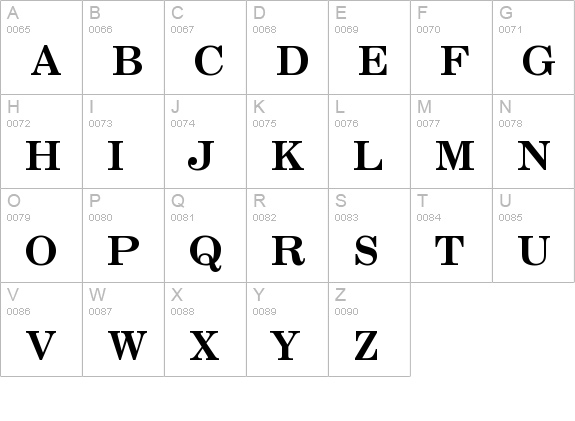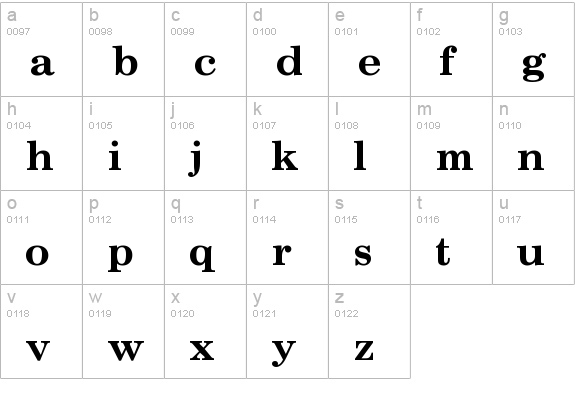
Century Schoolbook SSi Bold Font Details
Century Schoolbook SSi Bold is a strong, high-contrast variant in the Century typeface family \xE2\x80\x94 well suited to headlines, attention-grabbing titles, and strong calls-to-action.
Century Schoolbook SSi Bold font is a classic and elegant typeface that exudes sophistication and timelessness. Its bold weight makes it perfect for making a strong statement in headlines, titles, and other prominent text. The font features a balanced design with clean lines and distinct letterforms that ensure readability and legibility across various applications. What makes Century Schoolbook SSi Bold font even more appealing is that it is available for free download at FontsMarket.com. This means you can easily access and use this stylish typeface in your projects without any cost. Whether you're working on print materials, digital designs, or web content, Century Schoolbook SSi Bold font is a versatile choice that will effortlessly elevate your typography. Add a touch of sophistication and professionalism to your work with Century Schoolbook SSi Bold font, now freely available for download at FontsMarket.com.